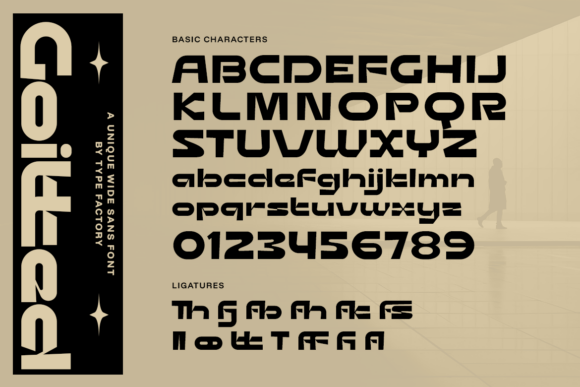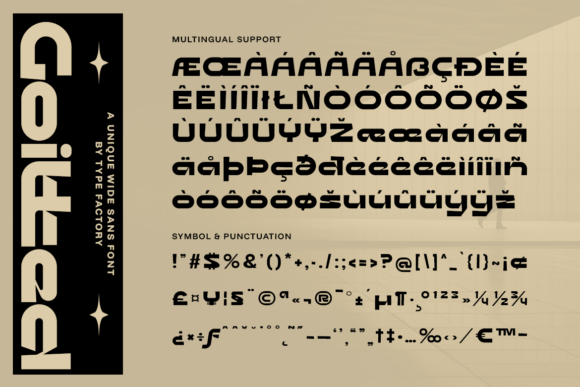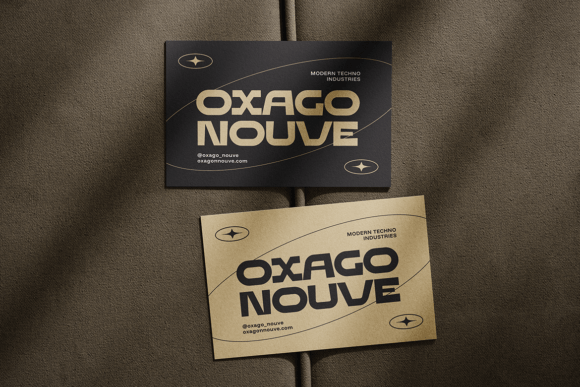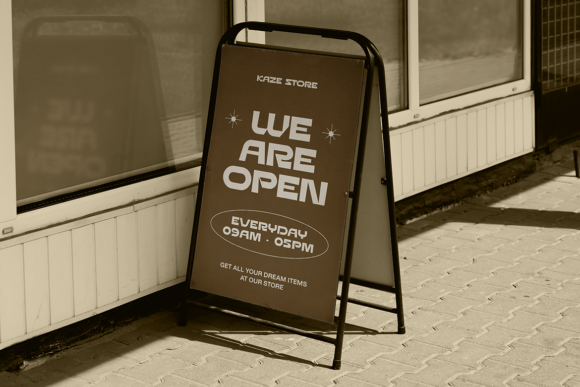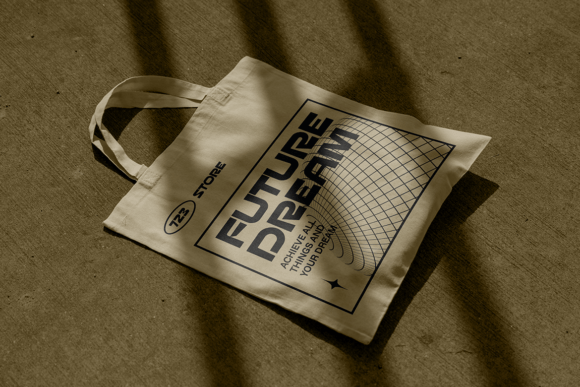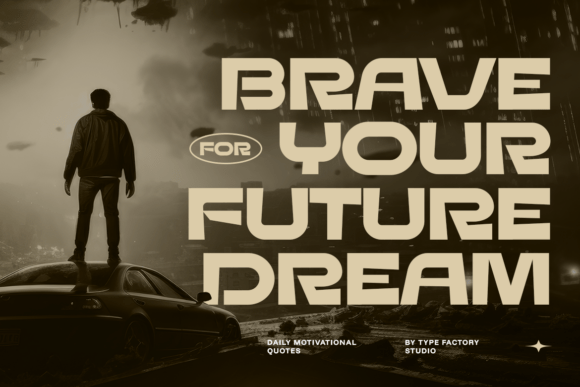
Introducing Goitted Font: A Futuristic Sans Serif for Modern Designs
In the world of typography, fonts play a crucial role in conveying the tone and aesthetic of a design. For designers and crafters looking for a modern and forward-looking visual tone, Goitted Font is an excellent choice. This wide futuristic sans serif font is built with a geometric structure and strong horizontal proportions, making it perfect for headlines, branding systems, posters, signage, packaging, technology visuals, automotive graphics, and contemporary design layouts.
Key Features of Goitted Font
Goitted Font boasts an impressive range of features that make it an ideal choice for designers. Some of its key features include:
- Extended Letterforms: Goitted Font features extended letterforms that create a wide and impactful sans presence. This makes it perfect for headlines, titles, and other display text.
- Bold Weight: The font’s bold weight adds to its modern and forward-looking visual tone, making it perfect for designs that require a strong and confident presence.
- Sharp Detailing: Goitted Font’s sharp detailing adds a level of sophistication and elegance to its overall aesthetic, making it suitable for a wide range of design applications.
- Uppercase, Lowercase, Numerals, Punctuation, Ligatures, and Multilingual Support: Goitted Font includes a comprehensive range of characters, ensuring that designers have everything they need to create beautiful and functional text.
- Symbols: The font also includes a range of symbols, making it perfect for designs that require a little extra visual flair.
Design Applications for Goitted Font
Goitted Font is an incredibly versatile font that can be used in a wide range of design applications. Some of the most effective uses for this font include:
- Headlines: Goitted Font’s extended letterforms and bold weight make it perfect for headlines and titles.
- Branding Systems: The font’s modern and forward-looking visual tone makes it an excellent choice for branding systems that require a strong and confident presence.
- Posters: Goitted Font’s wide and impactful sans presence makes it perfect for posters and other large-format designs.
- Signage: The font’s bold weight and sharp detailing make it suitable for signage and other applications where text needs to be easily readable.
- Packaging: Goitted Font’s modern aesthetic makes it an excellent choice for packaging designs that require a fresh and contemporary look.
- Technology Visuals: The font’s futuristic feel makes it perfect for technology visuals and other designs that require a cutting-edge aesthetic.
- Automotive Graphics: Goitted Font’s bold weight and strong horizontal proportions make it suitable for automotive graphics and other designs that require a strong and confident presence.
Why Choose Goitted Font?
With so many fonts available, why choose Goitted Font? Here are just a few reasons why designers and crafters love this font:
- Unique Aesthetic: Goitted Font’s futuristic sans serif aesthetic sets it apart from other fonts, making it perfect for designers looking for something new and innovative.
- Versatility: The font’s wide range of features and applications make it an incredibly versatile choice for designers.
- Modern and Forward-Looking: Goitted Font’s modern and forward-looking visual tone makes it perfect for designs that require a fresh and contemporary aesthetic.
In conclusion, Goitted Font is an excellent choice for designers and crafters looking for a modern and forward-looking sans serif font. With its extended letterforms, bold weight, sharp detailing, and comprehensive range of characters, this font is perfect for a wide range of design applications. Whether you’re working on a headline, branding system, poster, signage, packaging, technology visual, automotive graphic, or contemporary design layout, Goitted Font is sure to make a lasting impression.